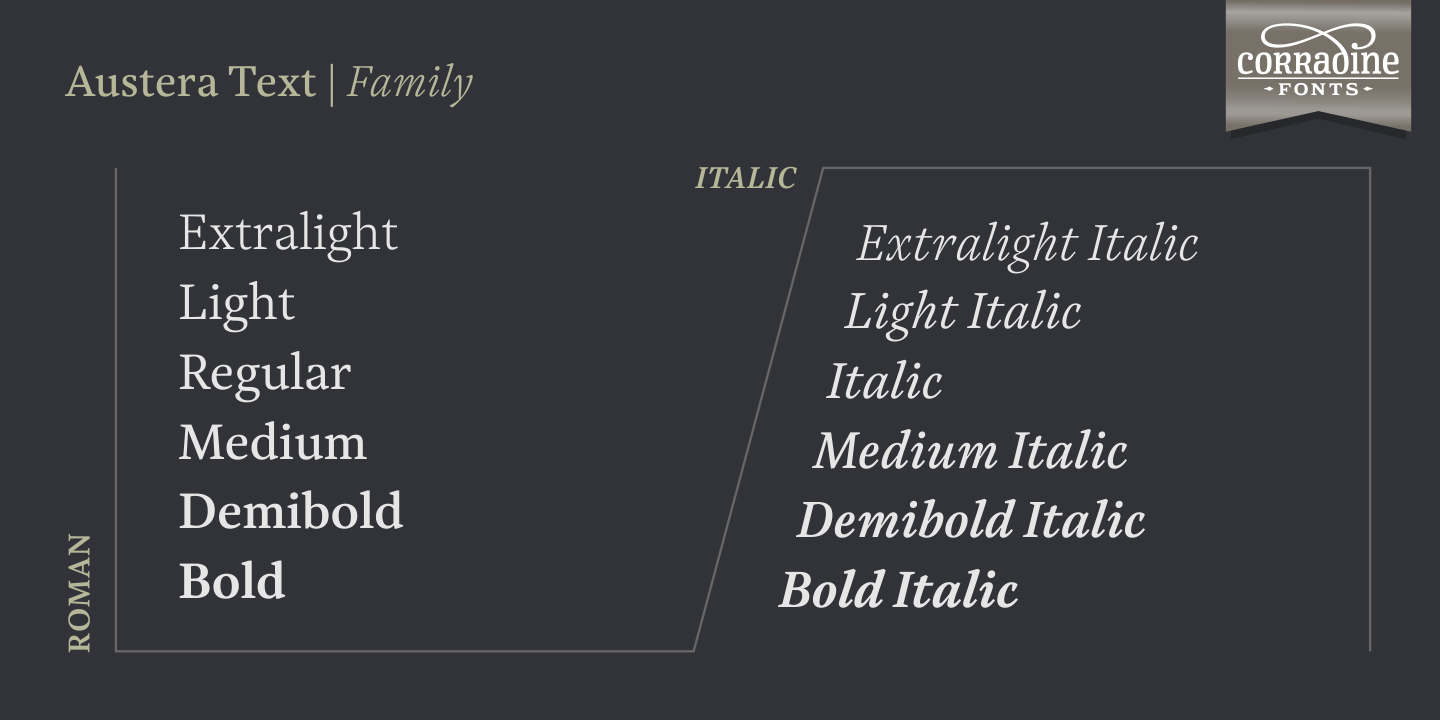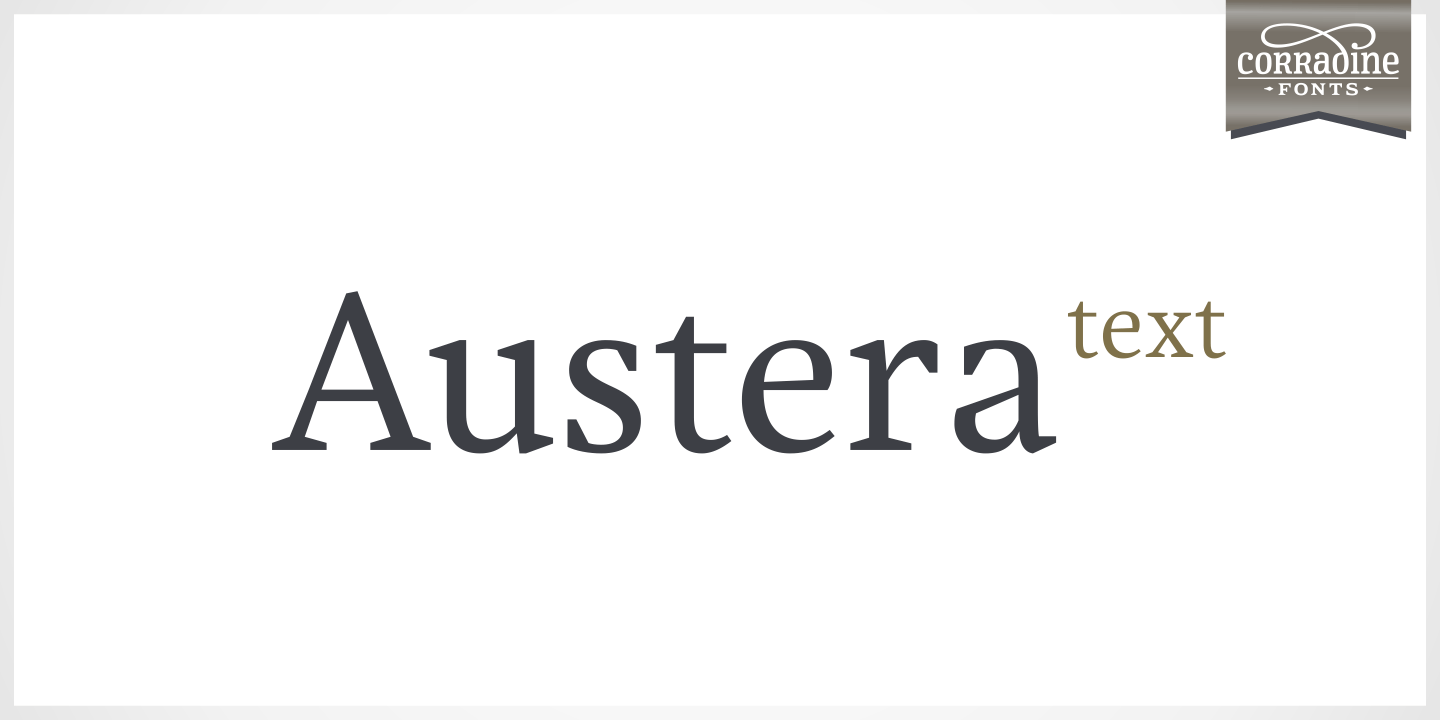
Austera Text
About Austera Text
Austera Text is a clean and structural humanist font face whose purpose is to be clear while don\’t interferes with the message concept. Austera Text is a contemporary serif with moderate contrast, sharp shapes, fairly large x-height and moderate aperture…